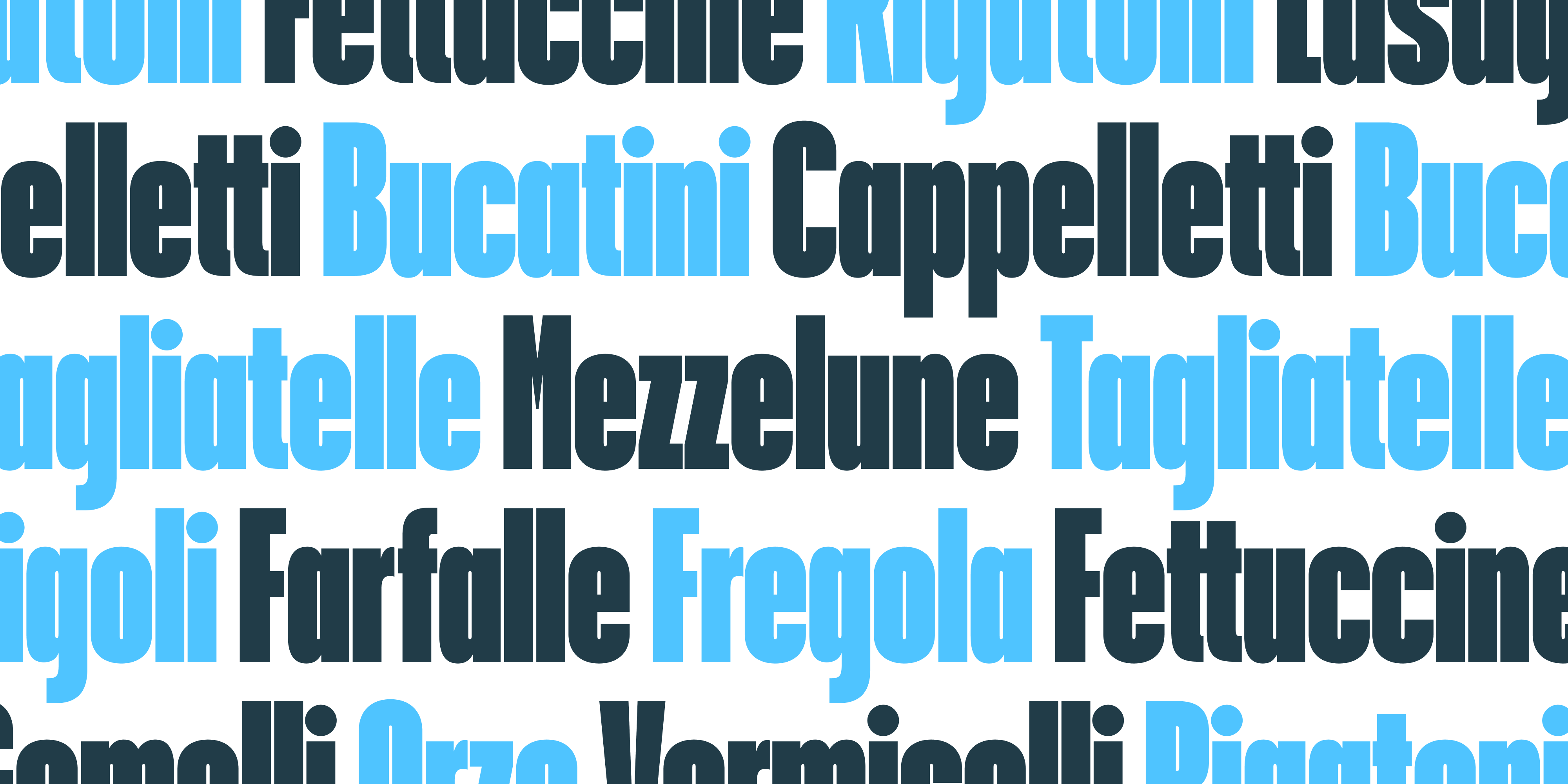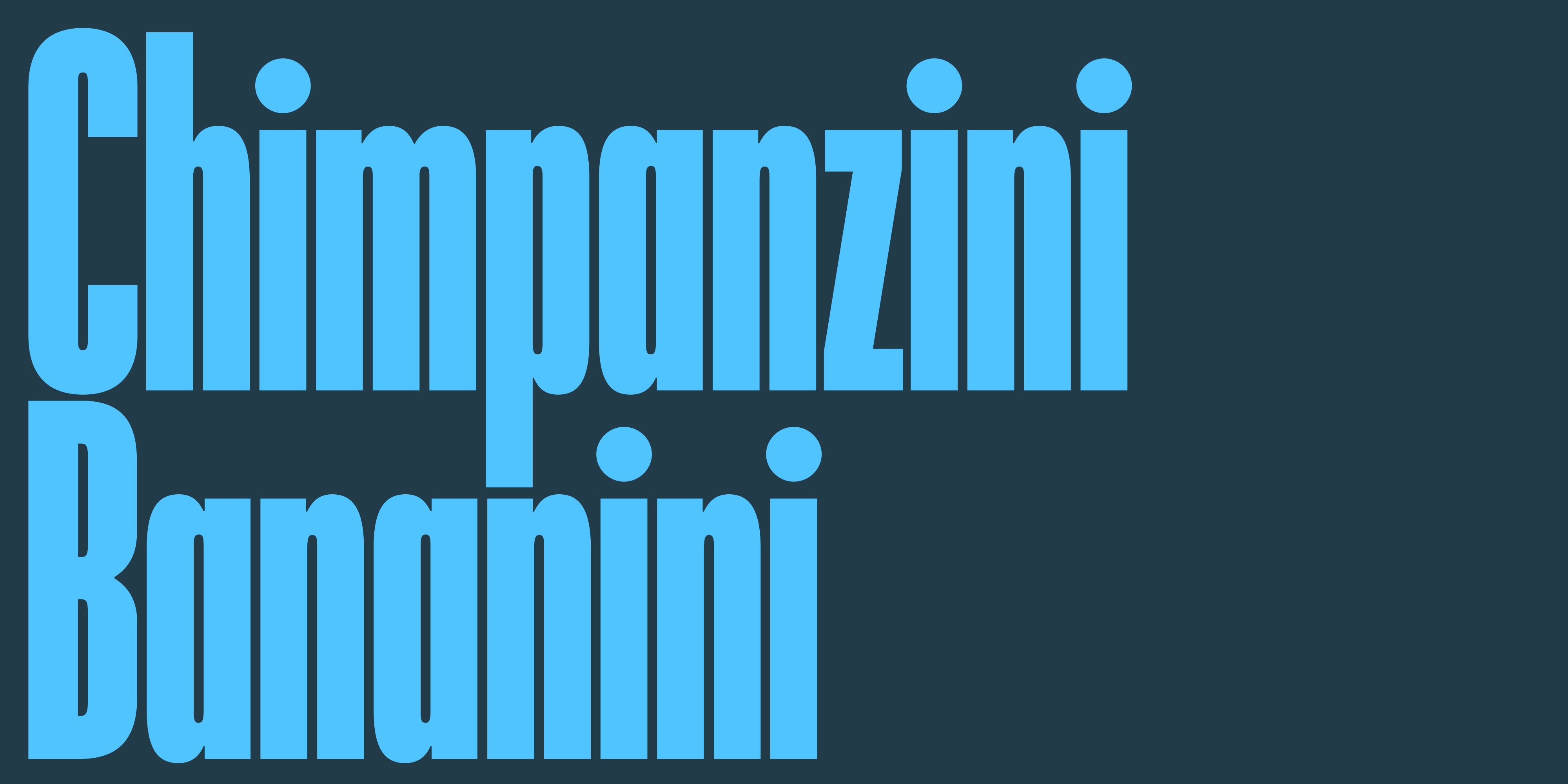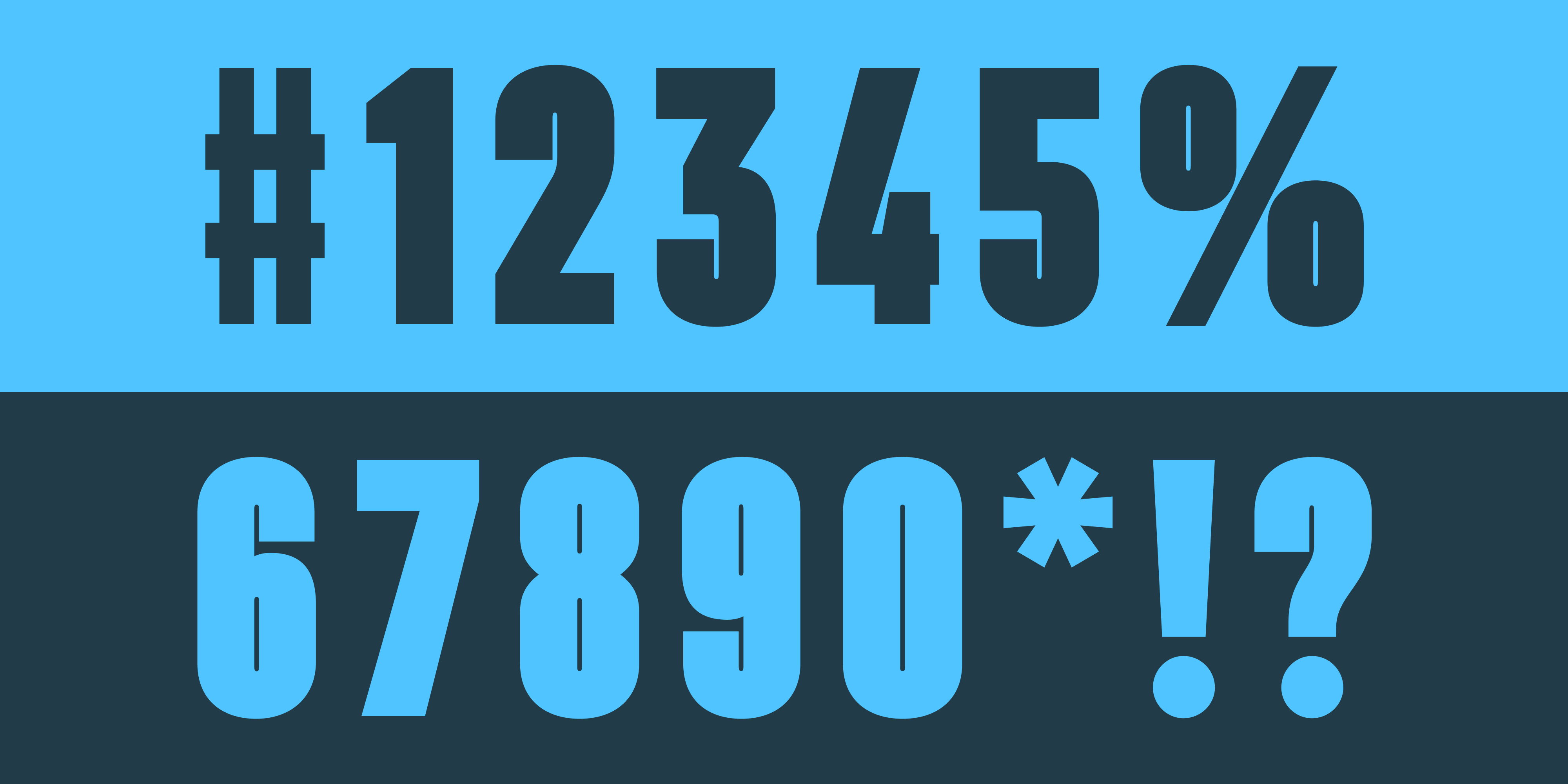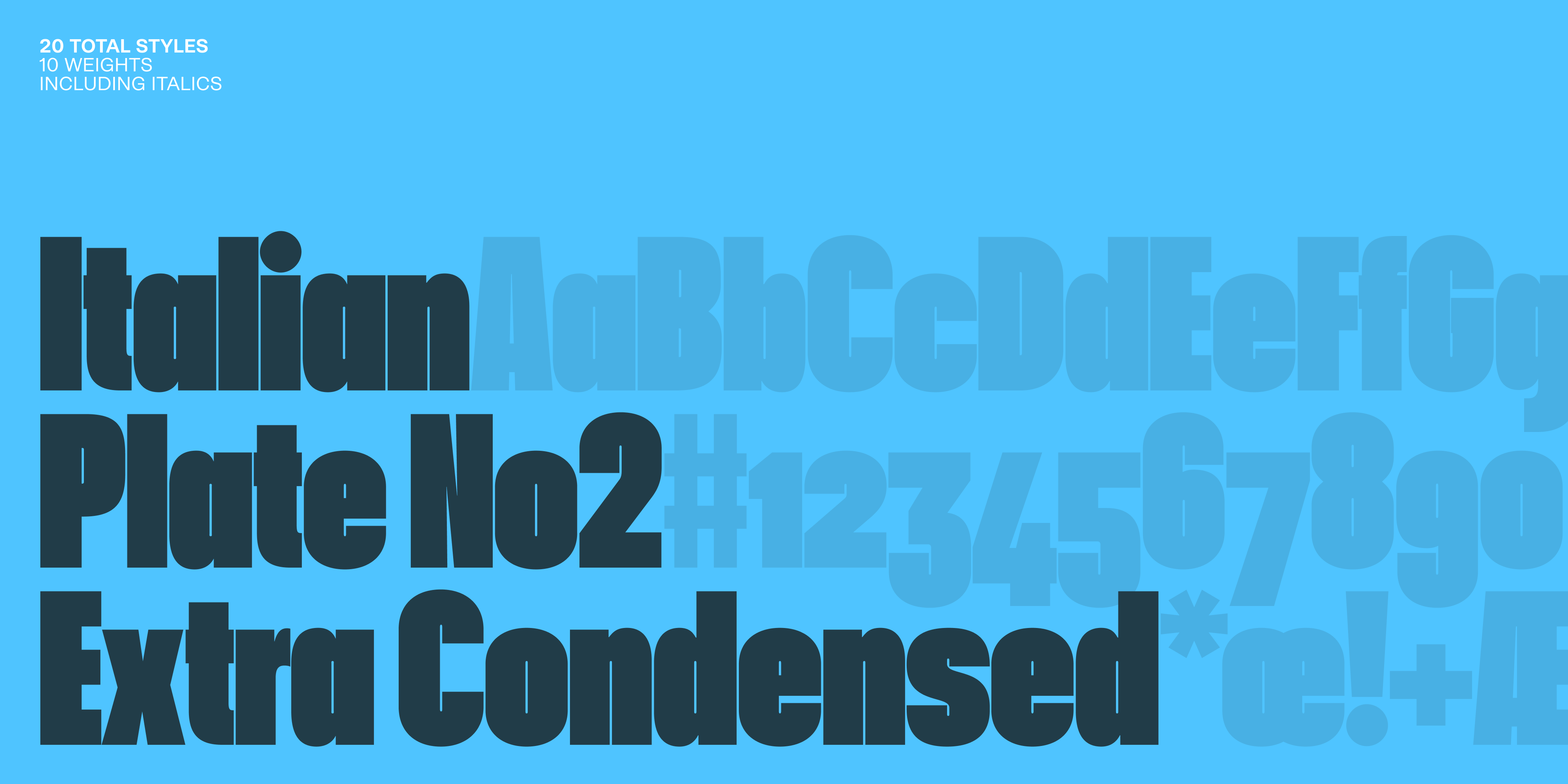
Italian Plate No2 Extra Condensed
Designer Jonas Hecksher
In this Extra Condensed version of No2, the design is pushed to the absolute limit with the width being compressed to the bare minimum. The original look is maintained, but has acquired edge through the sharpening of its endings, whilst the space consumption is reduced significantly through an immense tightness of the design. Since the weight has a major impact on the width of the typeface, there is a large span between the Ultra Light and the Black, offering a wide variation in expression. Extra Condensed is always good for use in titles and headlines because of the visual impact that the narrowness creates.